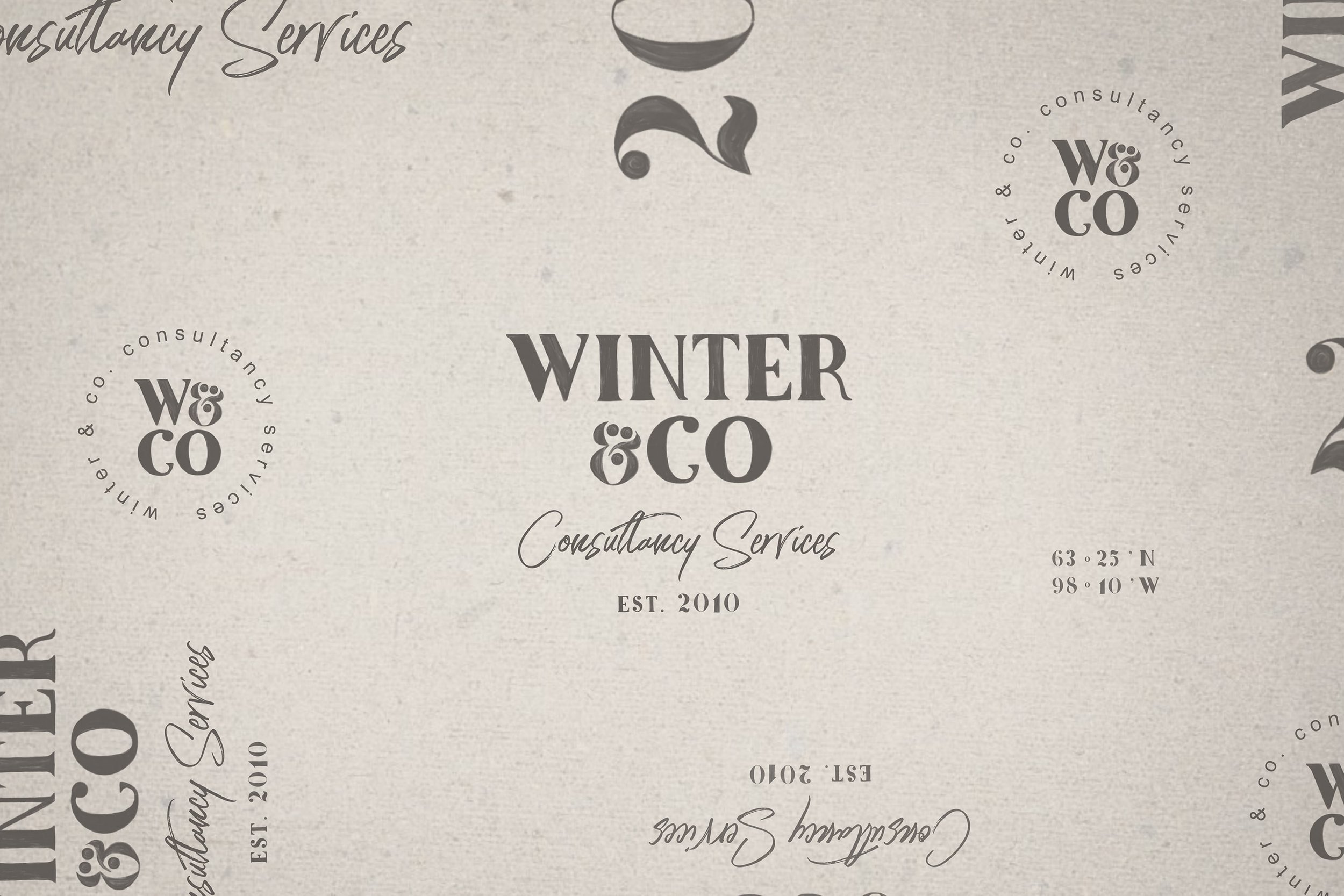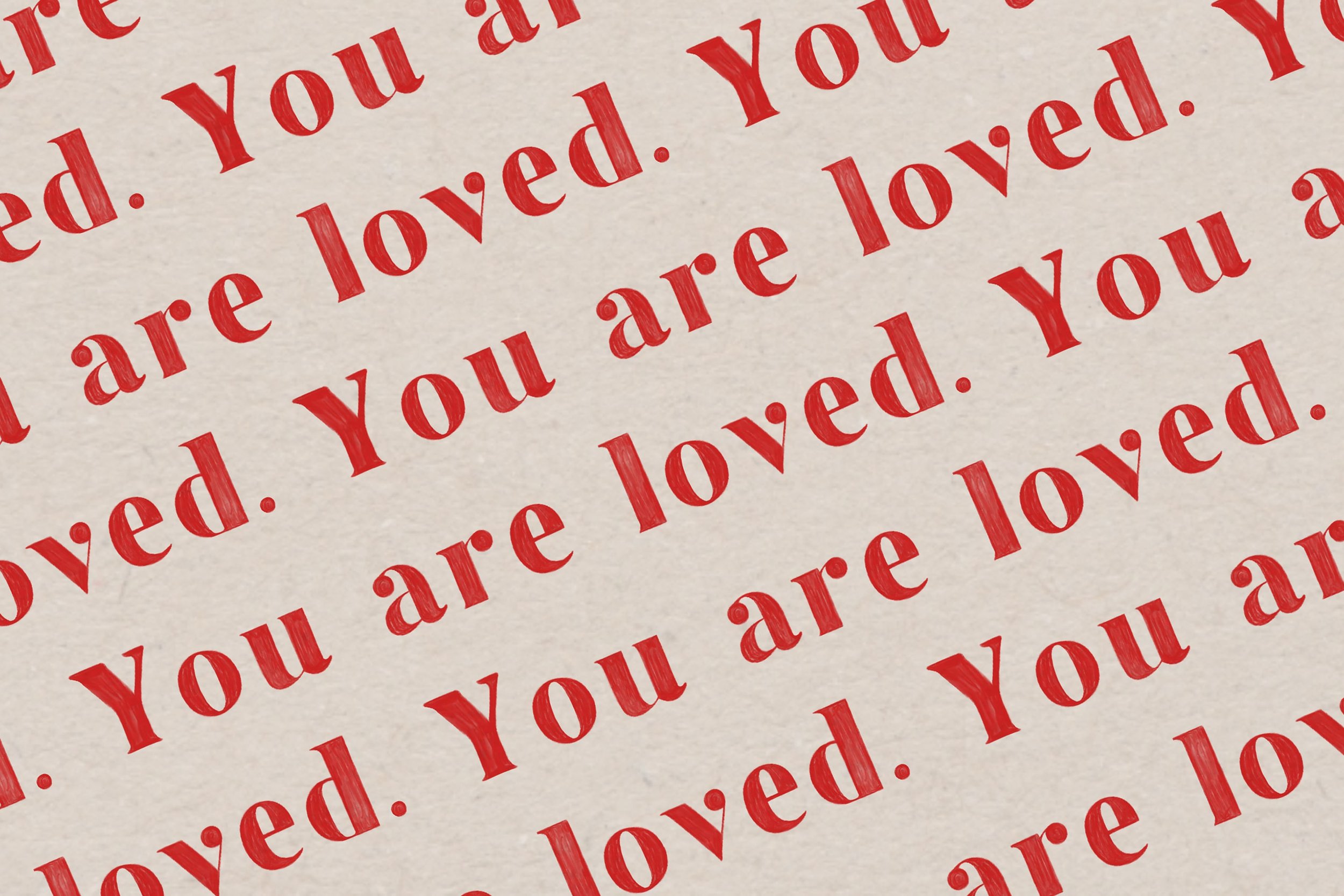
Bring a touch of handcrafted charm to your business with Magic SVG Font. This one-of-a-kind typeface is a celebration of individuality and aesthetic grace. Magic offers a breathtakingly simple approach to typography, with each raster bitmap letter being a product of dedicated craftsmanship—painted by hand a dozen times over.